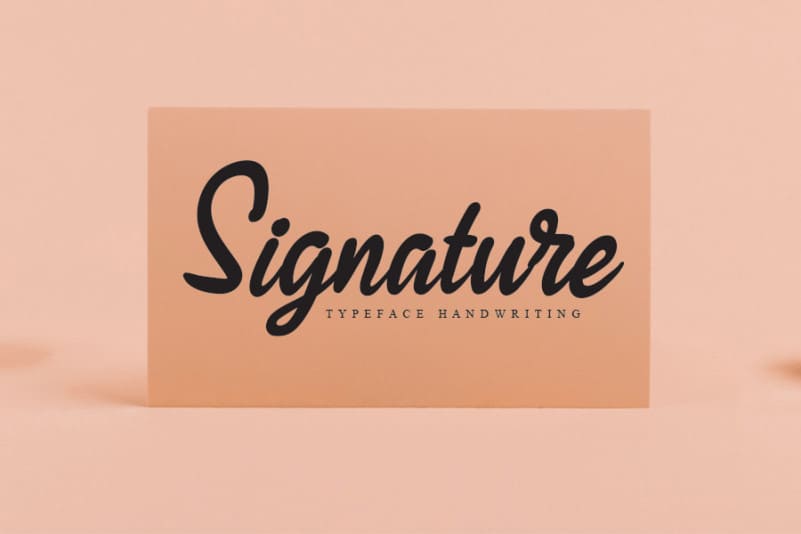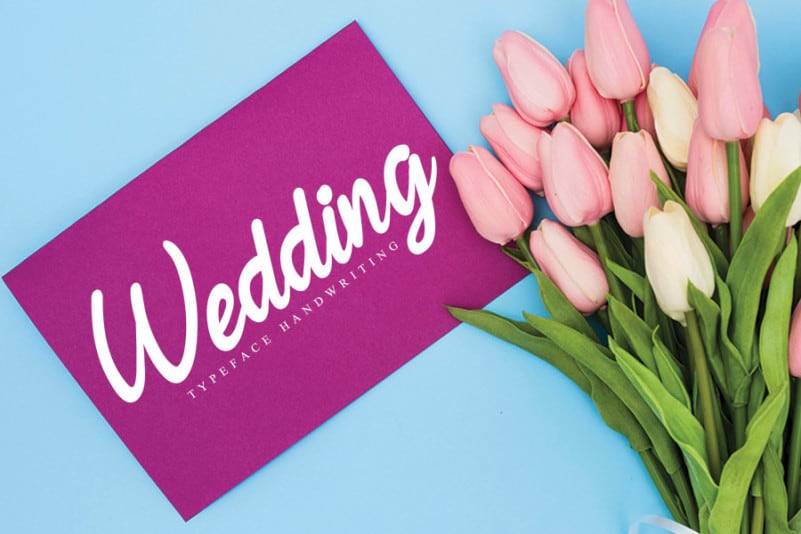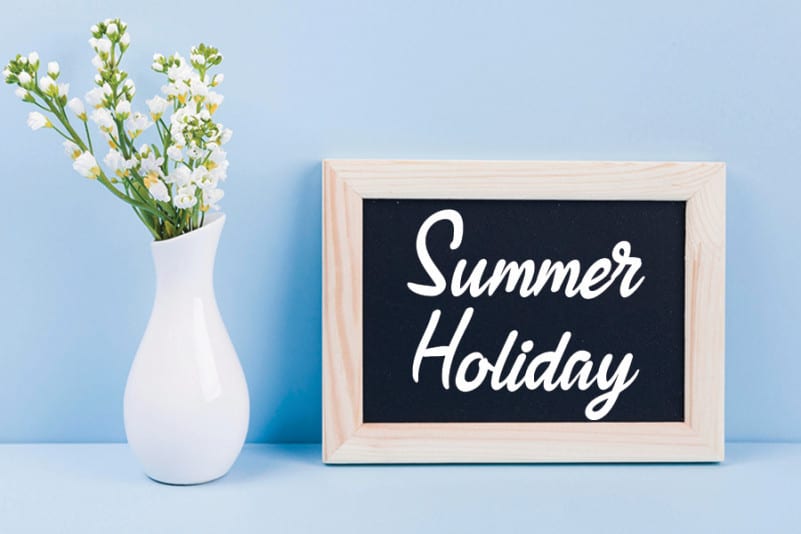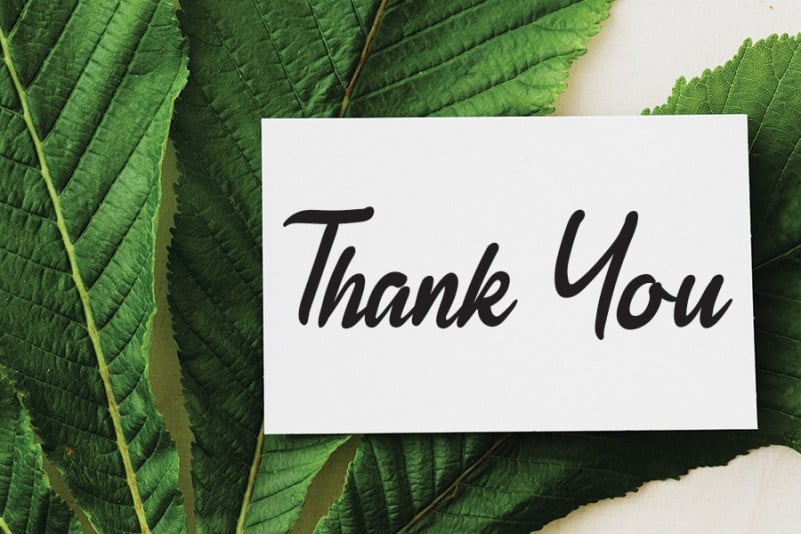
Gardenia Flower Script Font
Gardenia Flower Script Font is a casual script font. Use it to make your ideas even more realistic and create spectacular designs!